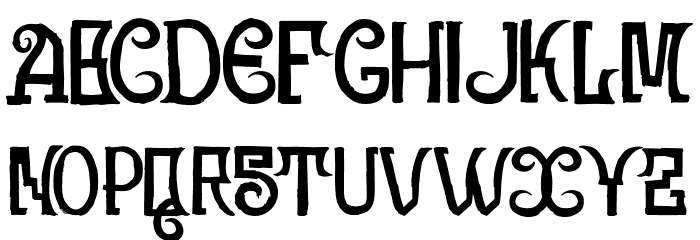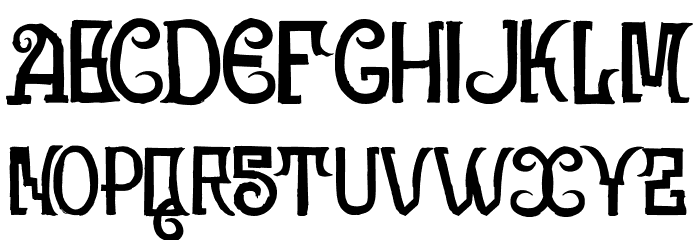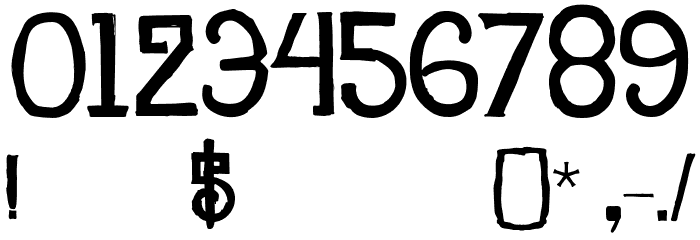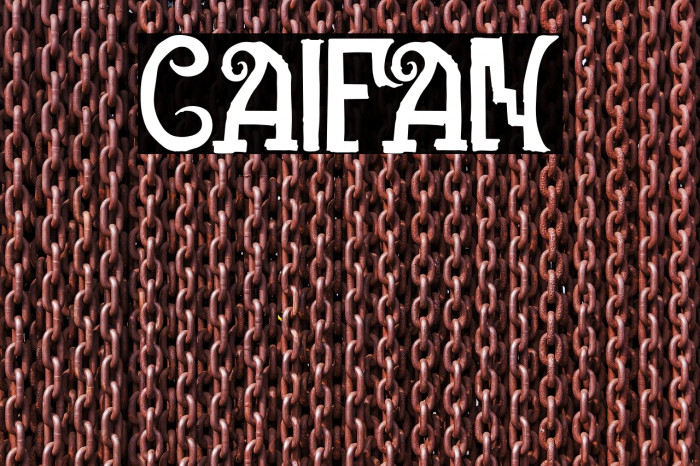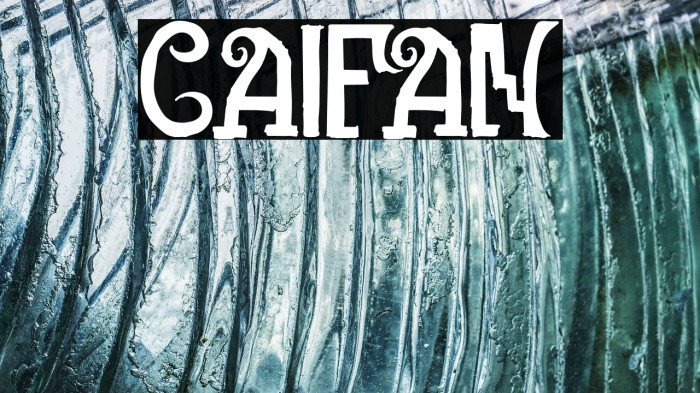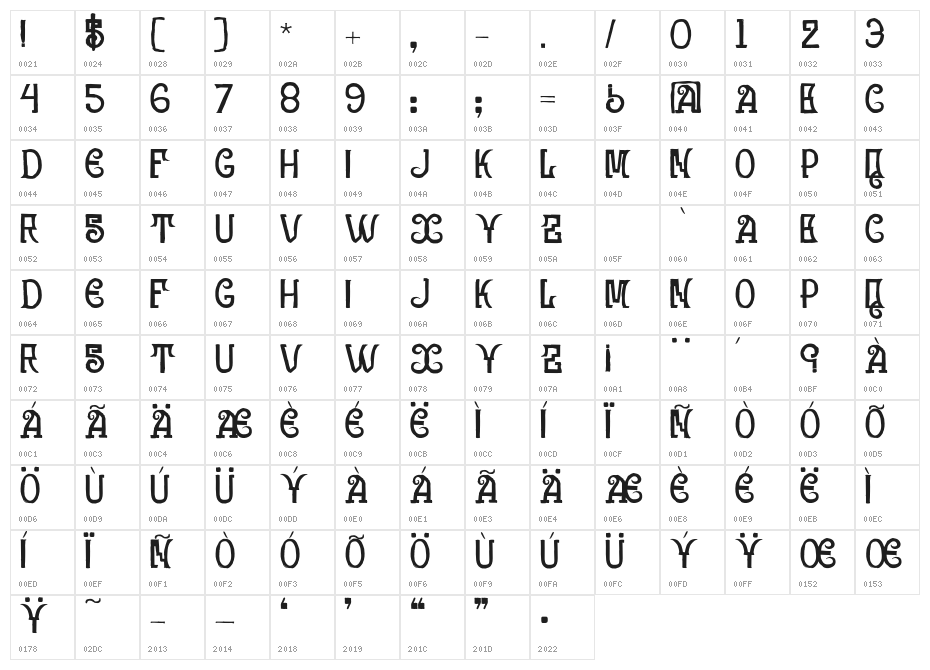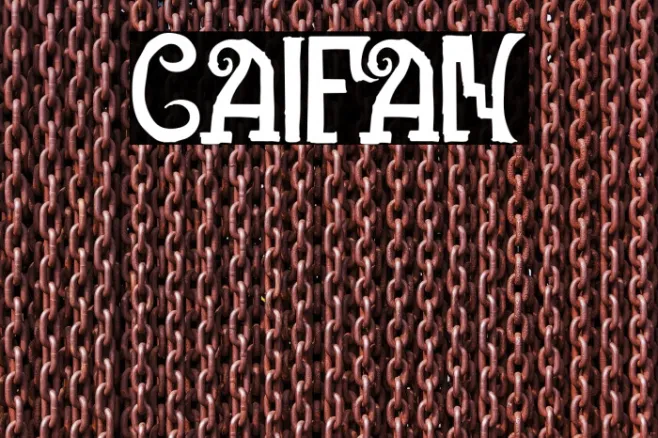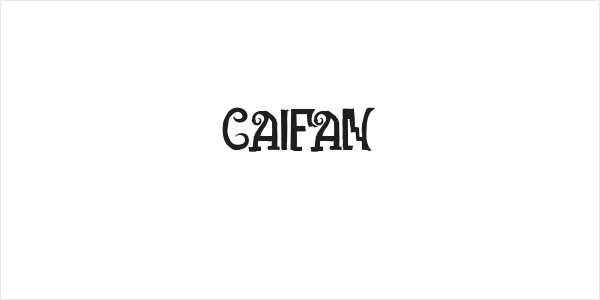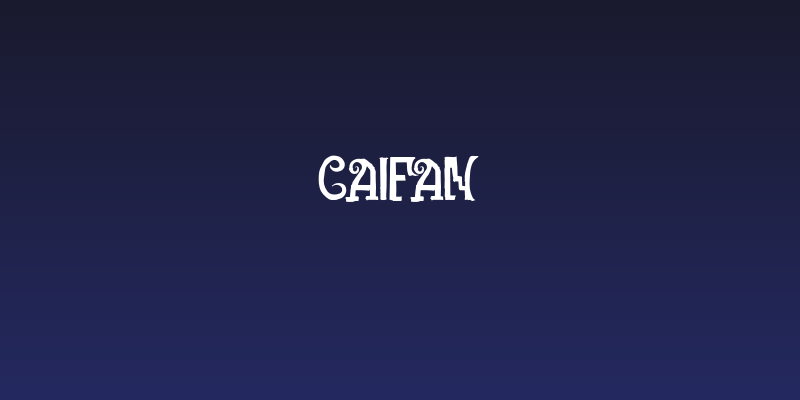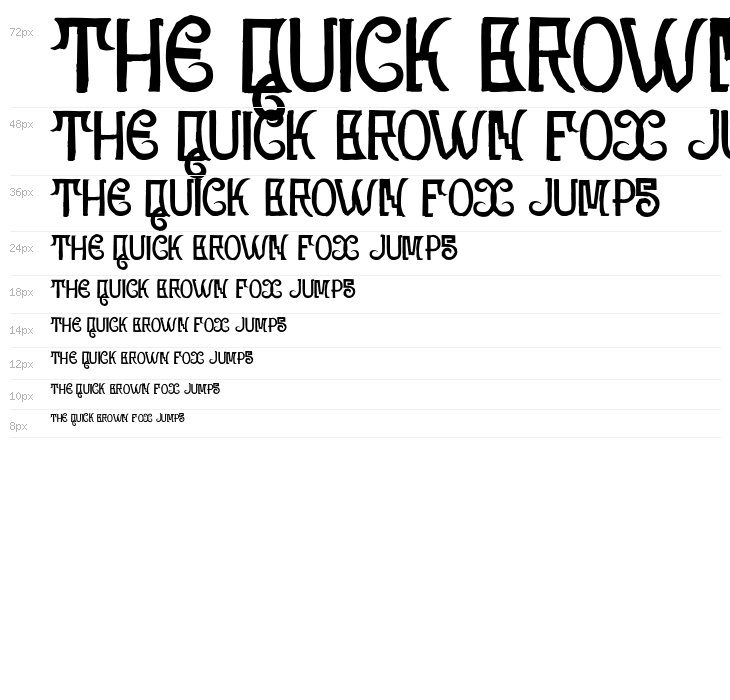
CAIFAN Font
This font features a bold and playful design with a unique blend of curves and sharp edges. The uppercase letters are characterized by their decorative elements, such as swirls and hooks, giving them a whimsical and artistic appearance. The lowercase letters maintain a consistent style, complementing the uppercase with similar decorative features. The numerals are bold and maintain the playful aesthetic, making them stand out. Special characters are designed with the same attention to detail, ensuring a cohesive look across all glyphs. This font's distinct style makes it ideal for creative and eye-catching designs.
A bold, playful font with decorative curves and sharp edges.
- Proposed Projects: Ideal for posters, album covers, children's books, and creative branding projects.